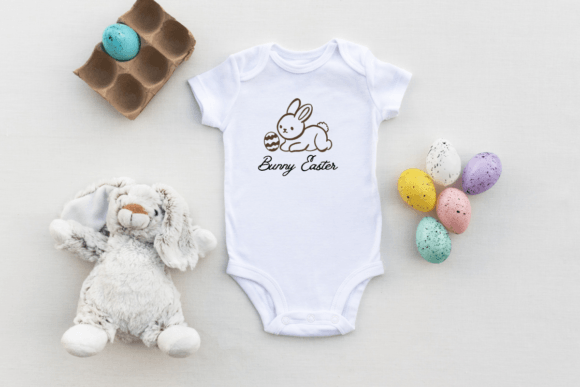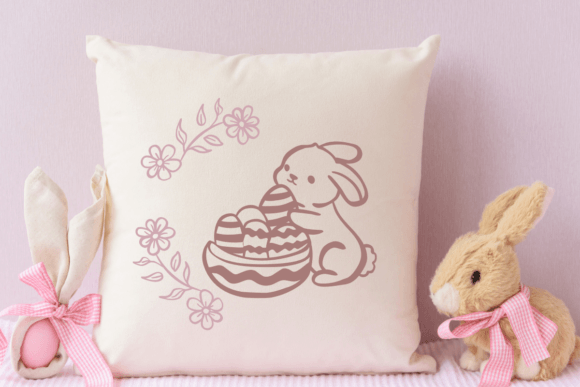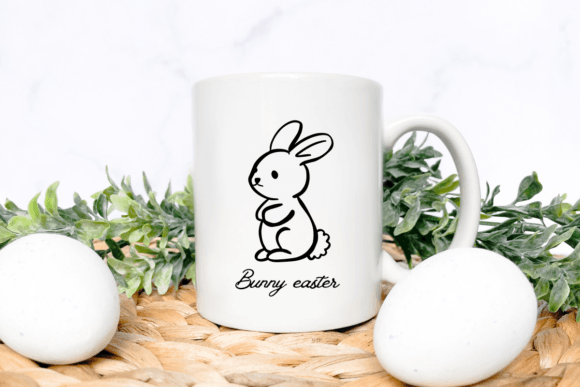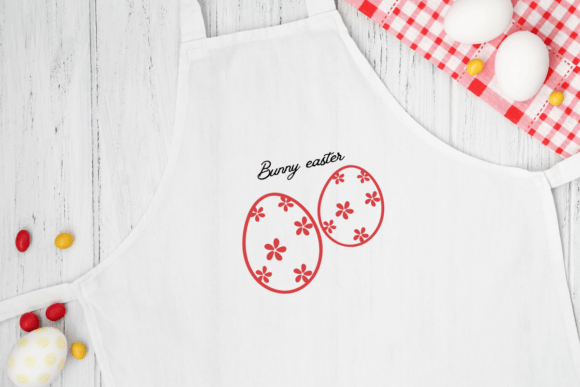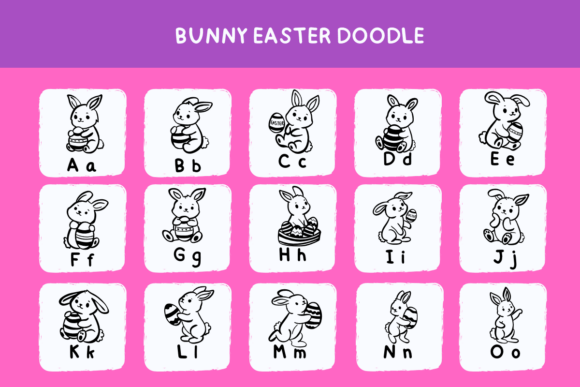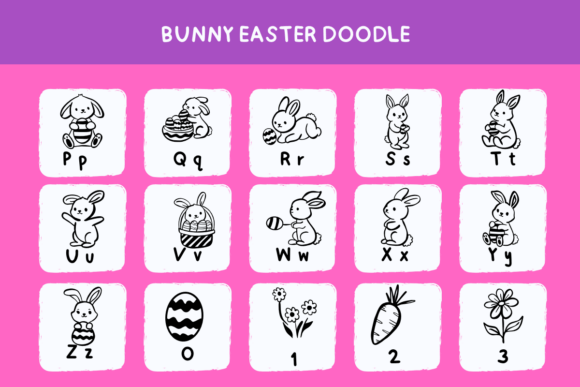
Spring into Creativity with the Bunny Easter Doodle Font
As you sit down to create Easter cards, party decorations, or scrapbooks, you can’t help but feel a twinge of inspiration. The vibrant colors and playful vibes of the season are calling your name. But, sometimes, all it takes is the right tool to bring your ideas to life. That’s where the Bunny Easter Doodle Font comes in – a delightful dingbat font featuring adorable bunny illustrations, Easter eggs, flowers, and more!
This charming font is the perfect addition to your design arsenal, adding a whimsical touch to your seasonal creations. Whether you’re a seasoned designer or a crafty enthusiast, the Bunny Easter Doodle Font is sure to bring a smile to your face and a spring to your step. With its versatile illustrations and playful feel, you’ll be hopping your way to creative success in no time!
Bunny Easter Doodle Font Key Features
• Font Type: Hand-drawn, whimsical, and playful Easter-themed font.
• Character Set: Includes uppercase and lowercase letters, numbers, and special characters, making it suitable for various text-based applications.
• Unique Characteristics: Features adorable bunnies, Easter eggs, and other festive elements, adding a touch of whimsy and fun to any text-based design.
Bunny Easter Doodle Font Review
I’ve had the chance to play around with the Bunny Easter Doodle Font, and here’s my honest review:
• The font is perfect for spring-themed projects and adds a playful touch to any design.
• The illustrations are adorable and come in a variety of bunny and Easter egg designs.
• The font is highly customizable, allowing you to adjust the size, color, and spacing to fit your project’s needs.
• The illustrations are also scalable, making them suitable for use in various contexts, from small social media graphics to large-scale promotional materials.
• The font may not be suitable for formal or professional projects due to its playful and whimsical nature.
• The illustrations are not as detailed as some users may prefer, which could be a limitation for those seeking more intricate designs.
Overall, I think the Bunny Easter Doodle Font is a great addition to any designer’s toolkit, especially those working on spring-themed projects. While it may have some limitations, its customization options and adorable illustrations make it a great choice for a variety of design projects.
Use the Bunny Easter Doodle Font for Easter-themed designs, such as invitations, greeting cards, and social media posts.
The Bunny Easter Doodle Font is a fun, playful font often used for Easter-themed designs. However, there are other alternatives that designers can consider for their projects.